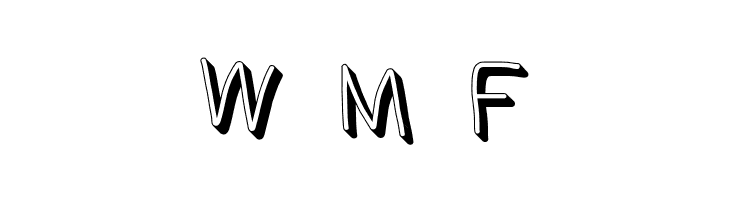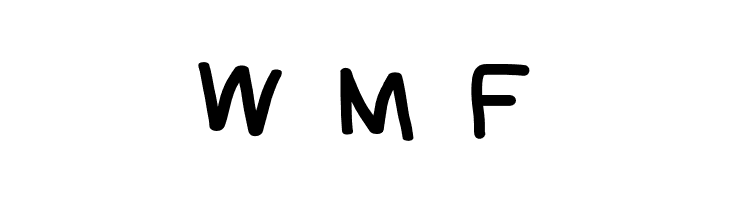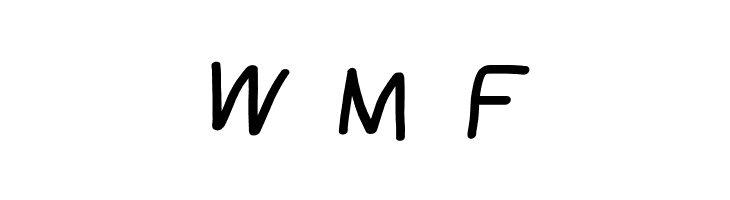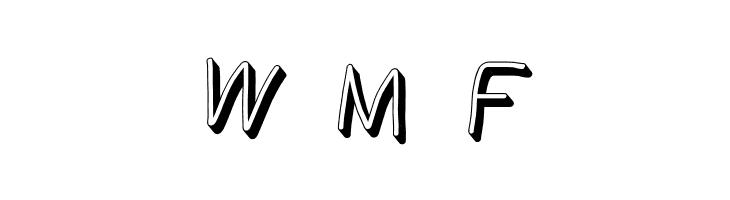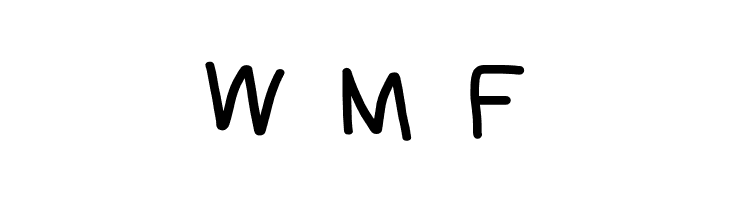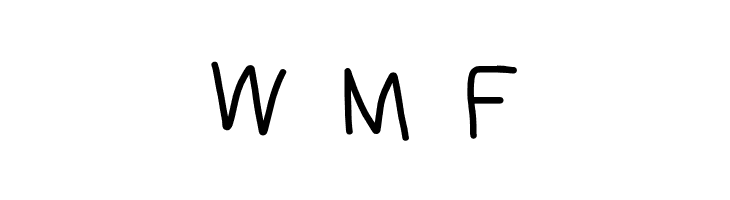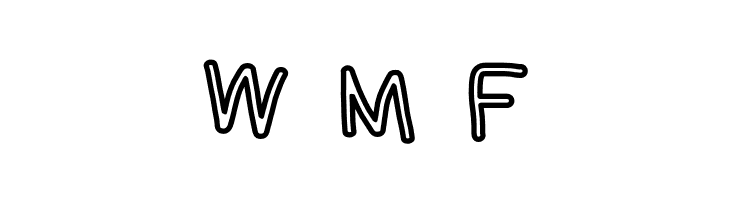
A playful, hand-drawn font with a bold shadow effect for a 3D look.
A playful, bold handwritten font with rounded characters.
A bold, italic handwritten font with a playful and dynamic style.
A bold, shadowed, and slightly italicized font with a playful and dynamic style.
A playful, handwritten font with bold, rounded characters.
A playful handwritten font with a casual and whimsical style.
A playful handwritten font with a casual and friendly style.
A playful, bold outline font with rounded, whimsical characters.